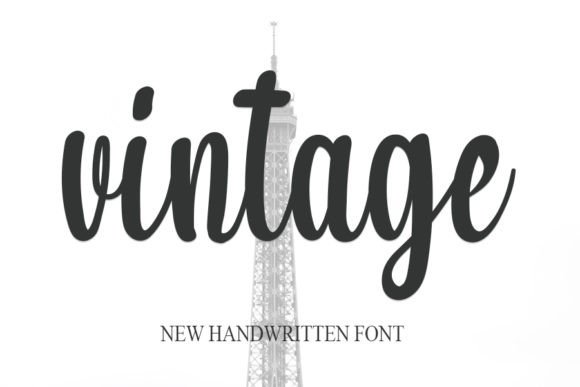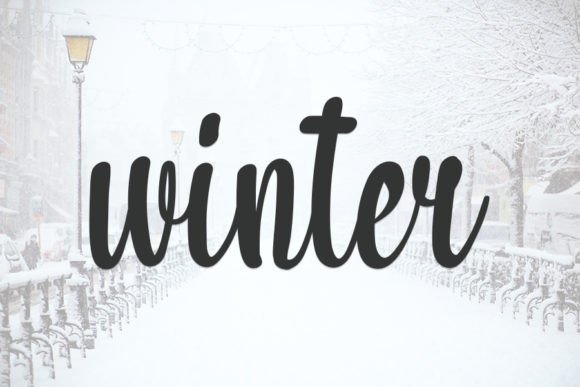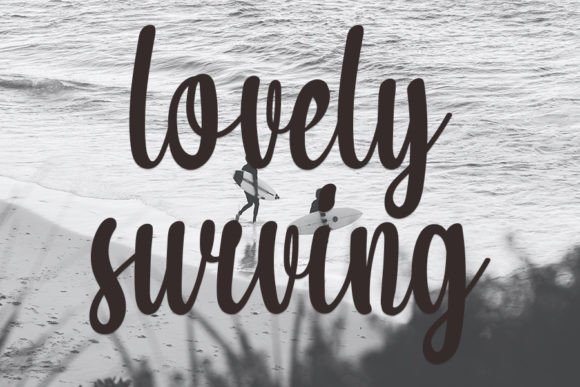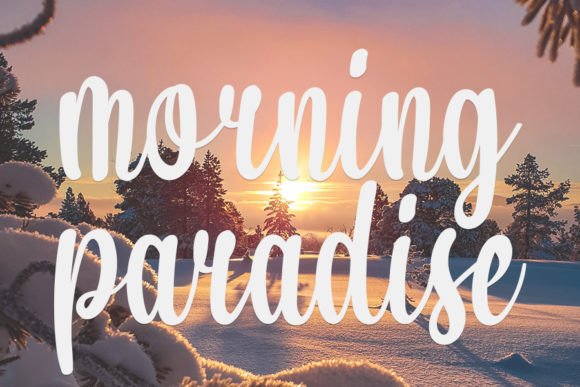
Vintage Font
“Vintage” is a font that seamlessly merges the elegance of classic calligraphy with a cool and modern handwritten style. Its balanced and varied strokes strike the perfect equilibrium between thin and thick, giving it a sophisticated and versatile appearance. With a spotless form and meticulous design, “Vintage” was created specifically to enhance the beauty of your projects.
**Classic Calligraphy Meets Modern Coolness**: “Vintage” captures the essence of classic calligraphy, adding a touch of timeless beauty to contemporary design. Its modern vibe infuses a sense of freshness and trendiness, making it an excellent choice for a wide range of creative projects. The blend of traditional elegance and modern coolness makes “Vintage” stand out.
**Balanced and Varied Strokes**: The font’s not-too-thin and not-too-thick strokes contribute to its balanced and varied appearance. This balance ensures readability and visual appeal, making it suitable for diverse applications. Whether you’re designing logos, invitations, or digital graphics, “Vintage” adapts effortlessly, enhancing the overall aesthetics of your projects.
**Spotless Form and Versatility**: “Vintage” boasts a spotless form, characterized by clean lines and flawless letterforms. This spotless quality ensures clarity and legibility, making the font suitable for both print and digital media. Its versatility allows you to explore different design ideas, confident that “Vintage” will maintain its elegance and charm across various contexts.
**Enhancing Your Creative Endeavors**: More than just a font, “Vintage” serves as a tool to elevate your creative endeavors. Whether you’re crafting branding materials, wedding invitations, social media posts, or any other project, this font adds a layer of sophistication and style. Its timeless appeal enhances the visual impact of your designs, making them memorable and captivating.
In summary, “Vintage” is a cool handwritten font that combines the grace of classic calligraphy with a contemporary edge. Its spotless form, balanced strokes, and modern vibe make it a valuable asset for designers seeking a font that enhances the beauty and elegance of their projects. Incorporate “Vintage” into your creative work and experience how it transforms your designs into visually stunning and refined masterpieces.